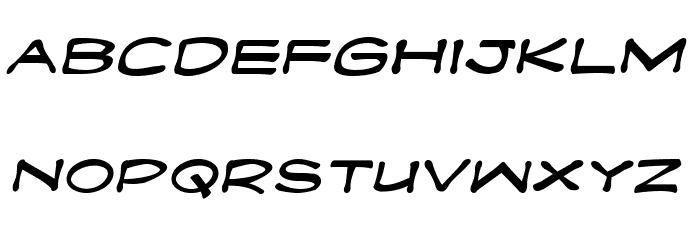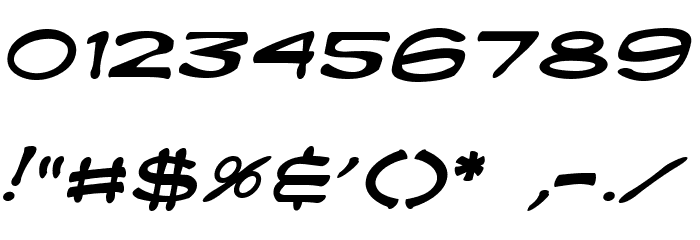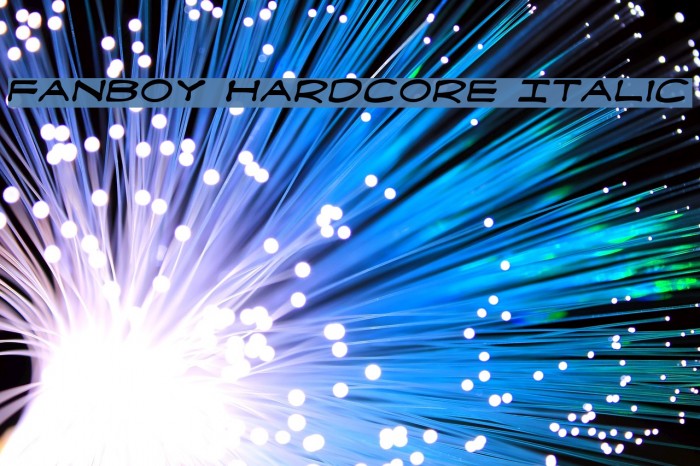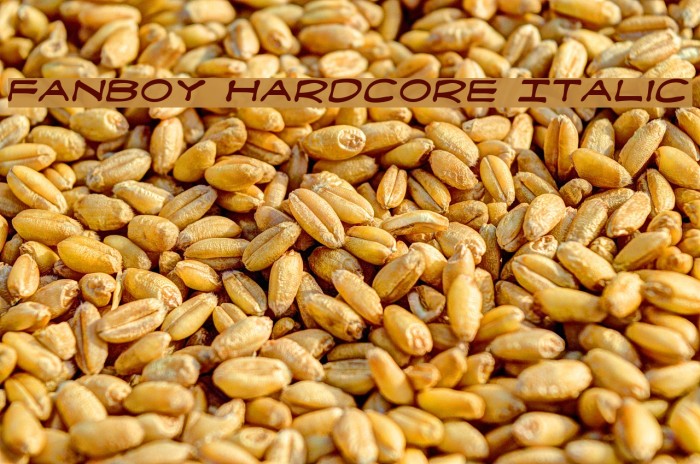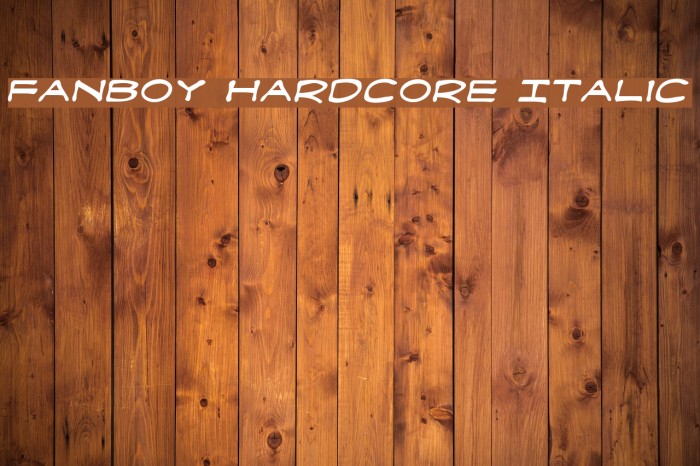
Fanboy Hardcore Italic Font
This font features a dynamic and energetic style, characterized by its italicized and slightly slanted letterforms. The strokes are bold and consistent, giving it a strong presence. The characters have a playful yet aggressive appearance, with sharp edges and a sense of motion. The uppercase and lowercase letters maintain a uniform style, while the numerals and special characters complement the overall design. This font's distinctive look makes it suitable for projects that require a bold and impactful visual statement.
A bold, italicized font with dynamic and energetic letterforms.
- Proposed Projects: Ideal for sports branding, action-themed posters, dynamic logos, and edgy apparel designs.